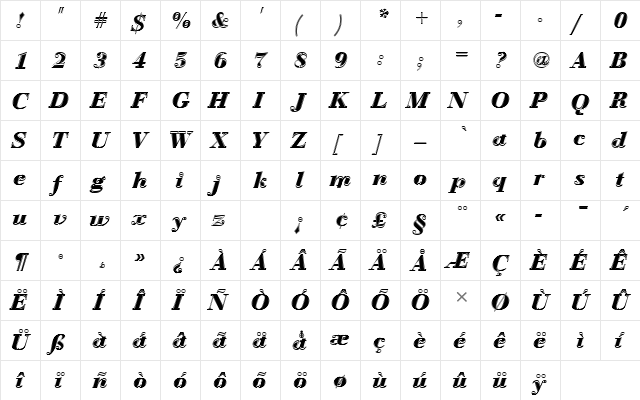
BauerBodDBolItaIn1 Regular Font Preview
BauerBodDBolItaIn1 Regular
Design Context for BauerBodDBolItaIn1 Typeface
BauerBodDBolItaIn1 is a composed and adaptable typeface that performs quietly and consistently across a wide range of design contexts.